Looking for new ways to attract more viewers to your Instagram content and profile? You could try using a new font when posting on the app. In this article, we show you can change fonts on Instagram when creating posts, Stories, Reels, and more.
If you’re curious about what kind of font Instagram uses by default, it’s the Proxima Nova. This is a classical sans-serif typeface that is considered one of the best for web use. By the way, if you’ve spotted a nice font and you want to know what it is, check out these useful tools to help you identify fonts in images.
While Instagram doesn’t natively include any tools that allow users to format the text attached to posts, changing the font is still possible.
How to Change Fonts for Instagram Bio, Posts & Comments
If you don’t like Instagram’s default font, you’re in luck. We show you how to change the font style in your bio on your profile and on regular posts and comments.
Using a web-based font generator is perhaps the easiest method available. Whether you’re using Instagram on your mobile device or browser, you can easily access one of the following tools (which are based on Unicode) in your favorite browser.
Unicode is the universal character encoding standard and converts all the characters for all the world’s writing systems. Instagram supports Unicode scripts, enabling it to work with different alphabets, punctuation marks, and emojis.
While there are many Instagram font generators out there, for the purpose of this tutorial, we’re going to use LingoJam’s Fonts for Instagram tool.
- Go to the Fonts for Instagram page on your mobile device or PC.
- Input the text you want to add to your post or bio in the box on top.
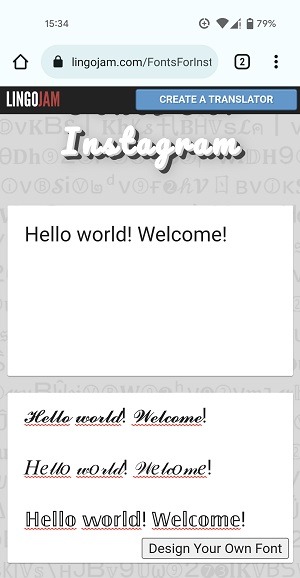
- The tool will start to autogenerate alternative versions of your text using different fonts.
- Scroll through the available options and once you’ve identified something you like, long press and then drag your finger over the text in question. Release the finger and select “Copy” from the menu that appears.
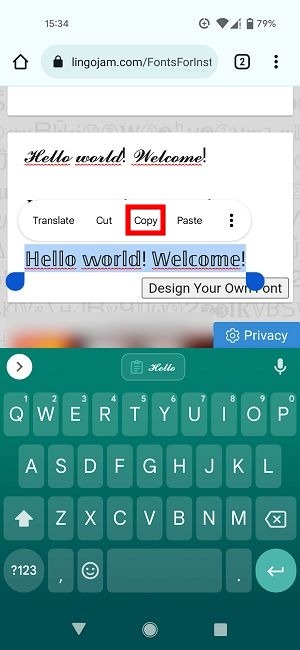
- To add the new text to your bio, go to your profile on Instagram and press the “Edit profile” button.
- Then paste the text in the “Bio” field.
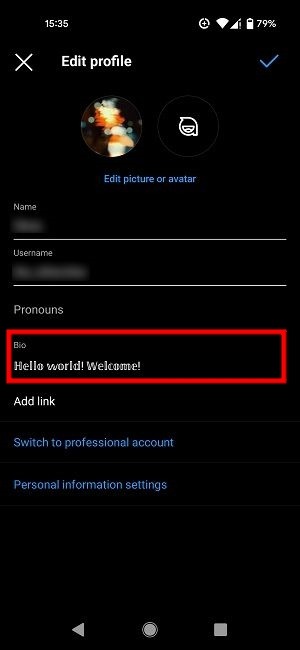
- Similarly, if you want to use the custom text in one of your posts, go to your profile and press the “+” button in the upper right corner on mobile. On PC, you will find it on the left side of the display.
- Select “Post” from the menu that pops up at the bottom.
- Add your images and go to the “New Post” screen. Paste the text in the “Write caption” field. The text using the font you’ve picked out will now be visible.
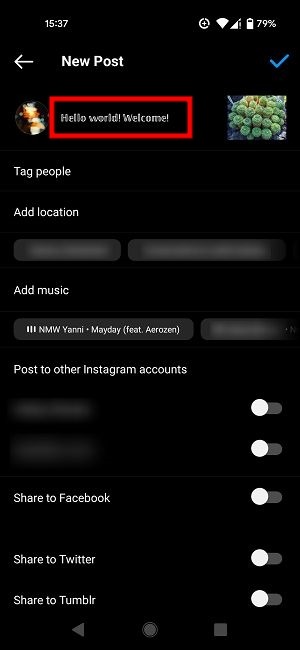
- You can also use change the caption font for Reels. Just fill out the “Write caption” field in the “New Post” screen, just like in the case of regular posts.
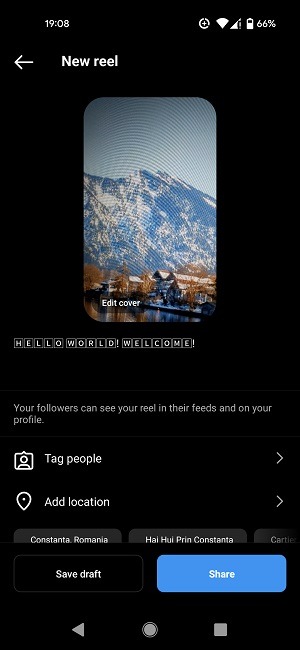
- When it comes to comments, it’s simple. Paste the custom text into the comment box and press “Post.”
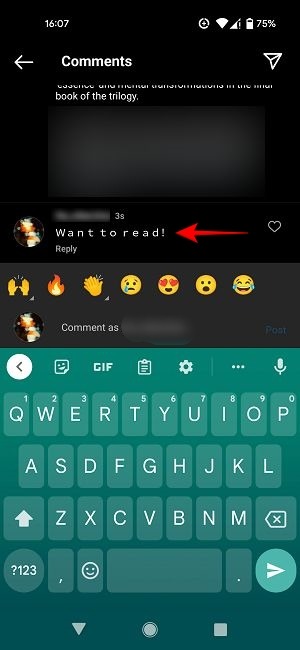
Not satisfied with the options available on Fonts for Instagram. There are plenty of other options to pick from online, including:
Some of these tools even have font creation options, so if you feel creative enough, you can go ahead and try your hand at making your own. If you want your font to be available for broader use, you can use one of these tools for your font-creation efforts.
How to Change Fonts for Instagram Stories and Reels
When it comes to Instagram Stories and Reels, you can add text on top of the image or video you’ve decided to use. We already showed you how to change the caption fonts for Reels, but what about the text that goes directly on top of them? Once again, options to change the font exist.
1. Built-in Options
If you want to add text on top of your Stories and Reels, you have a few options for customizing the font.
- On your Instagram profile, click on the “+” button in the upper right corner and select “Story.”
- Add the image(s) or video you wish to use.
- On the next screen tap on the “Aa” button at the top.
- Type in your text using the default font.
- To change the font swipe your finger at the bottom to bring up more options. Tap on one of them to change the font style.
- To change the color of the font, tap on the color palette at the top.
- If you want your text to pop out even more, opt for a sticker-style format instead. Tap on the “Sticker” icon at the top.
- Type in your text and see if sticker-like options are available featuring custom fonts. Note that if your text is more complicated, you’re probably not going to find a corresponding sticker, but as long as you keep it short, chances are you will find a match.
- Tap on your favorite option to add it to the Story.
Can I copy text from Word to Instagram?
You can, but Instagram won’t register the font you’ve used in Word. The pasted text will appear in Instagram’s default font. On the other hand, copying text from a Unicode-friendly font generator like Fonts for Instagram and pasting it into Word works just fine.